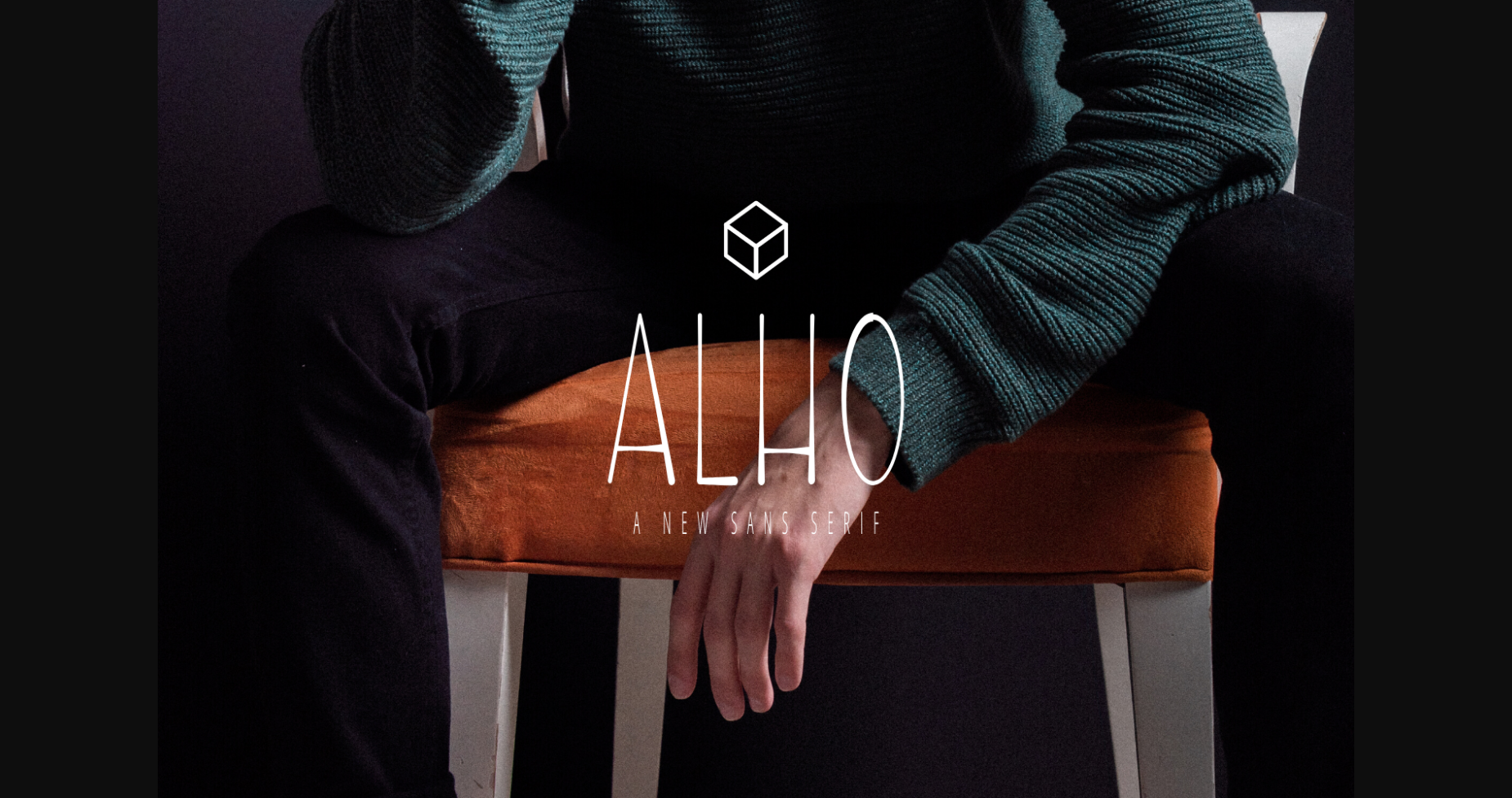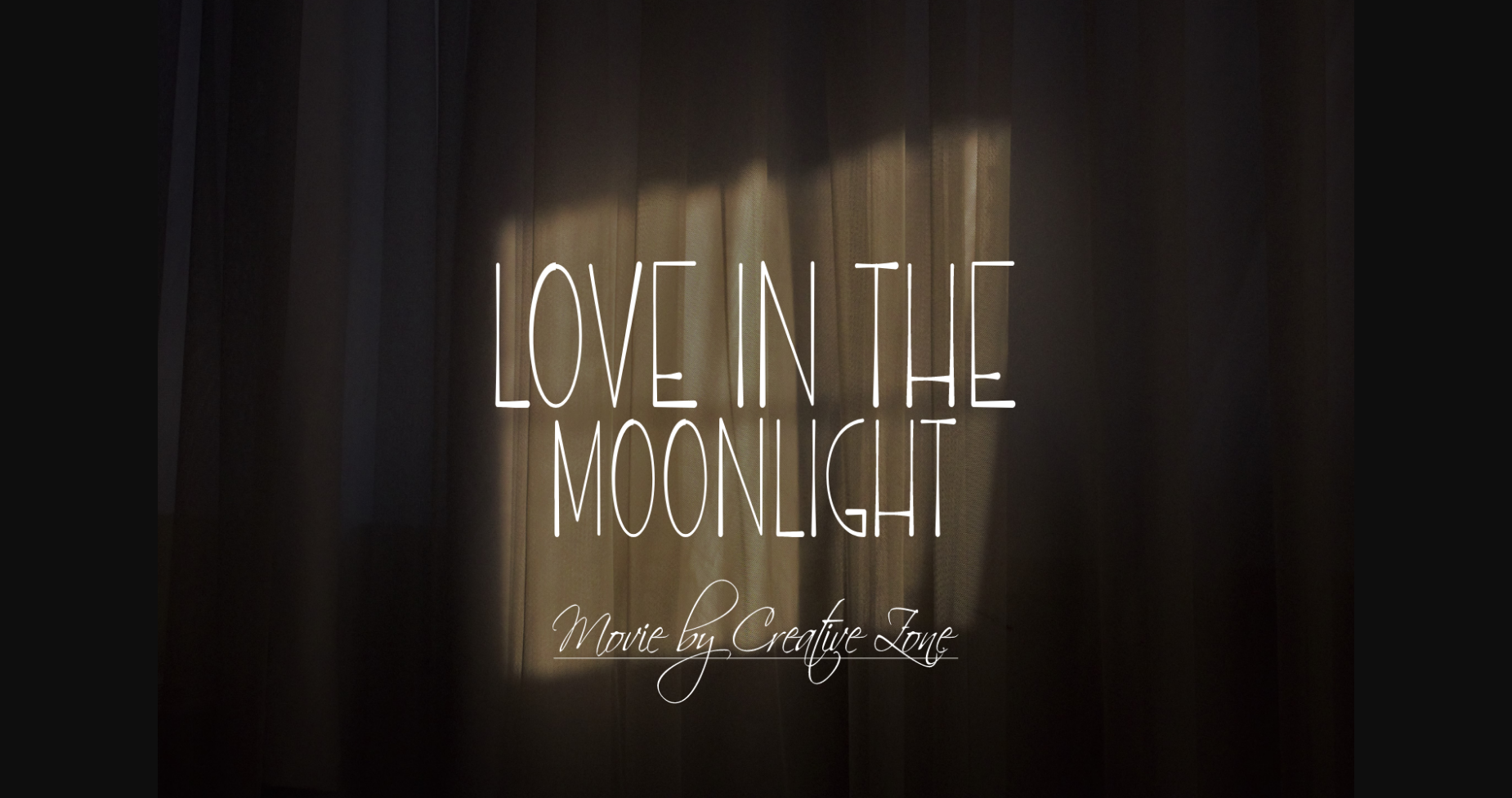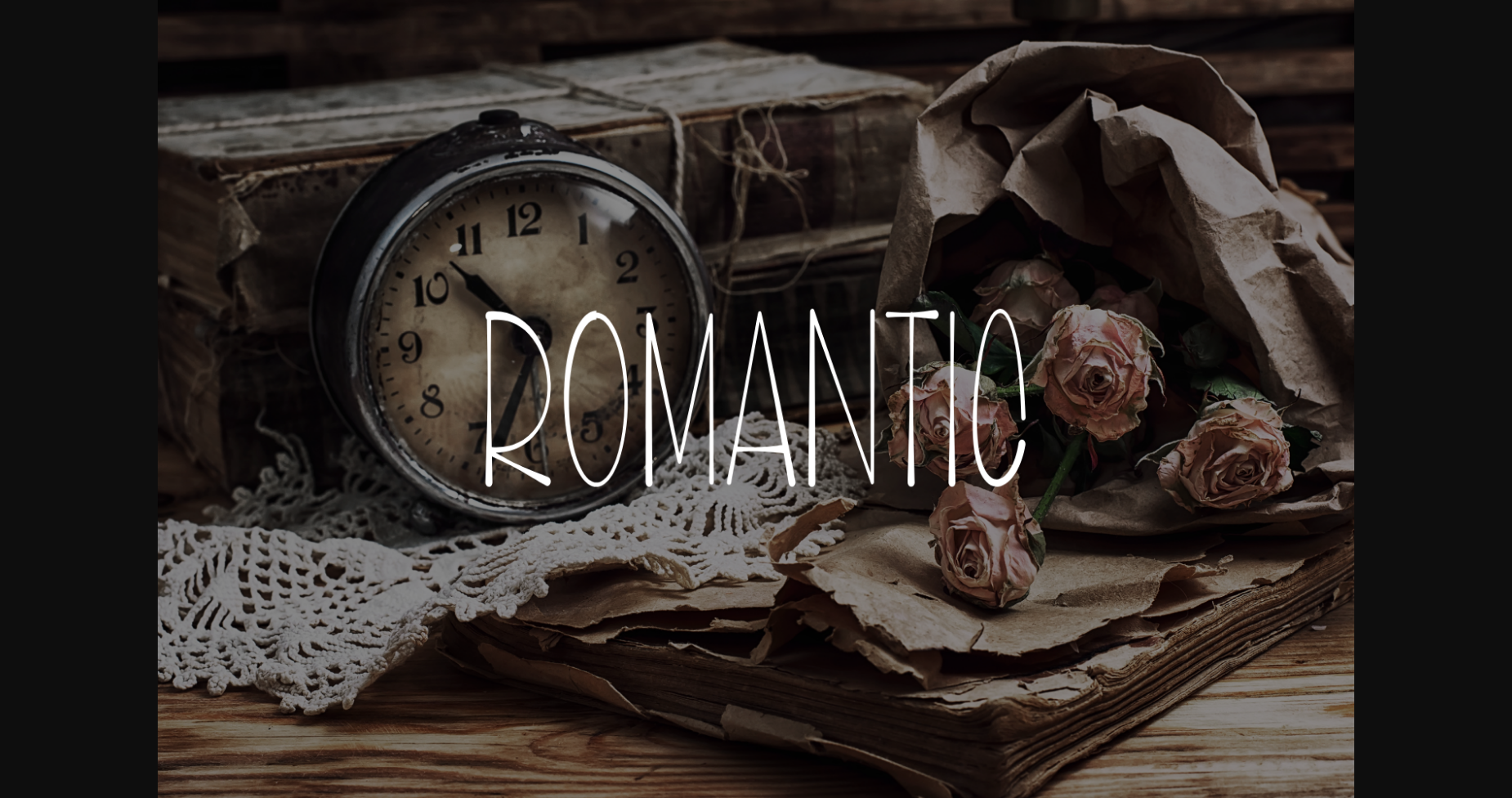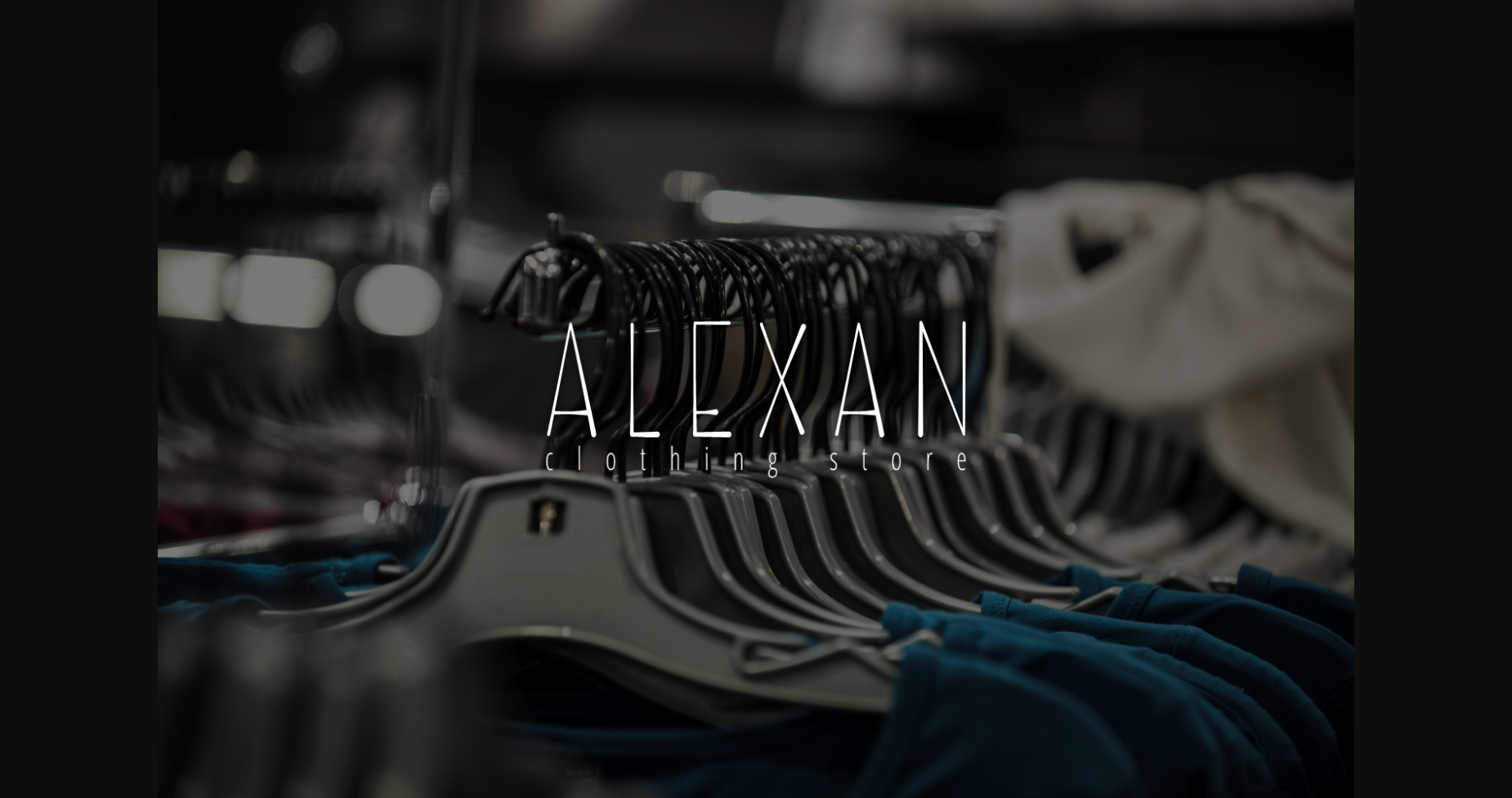
Alho Font
About Alho Font
Alho is a minimal and thin lettered sans serif font. It can easily be matched to an incredibly large set of projects, so add it to your creative ideas and notice how it makes them stand out!